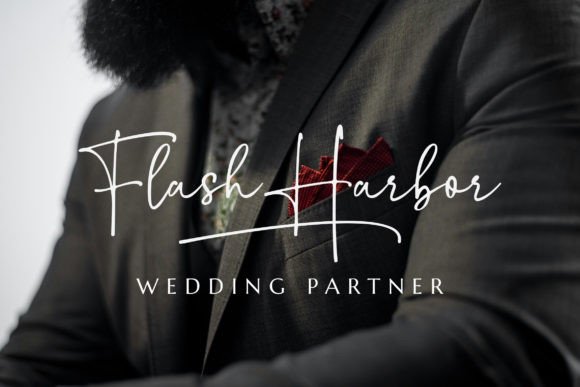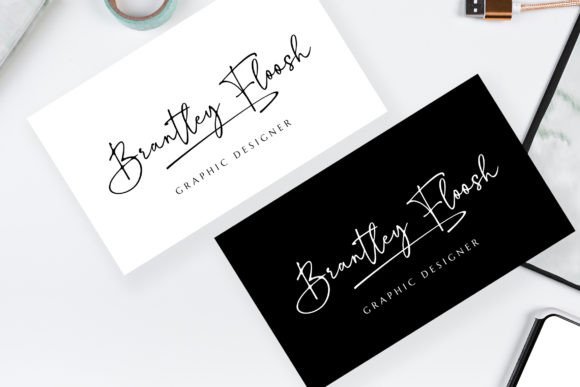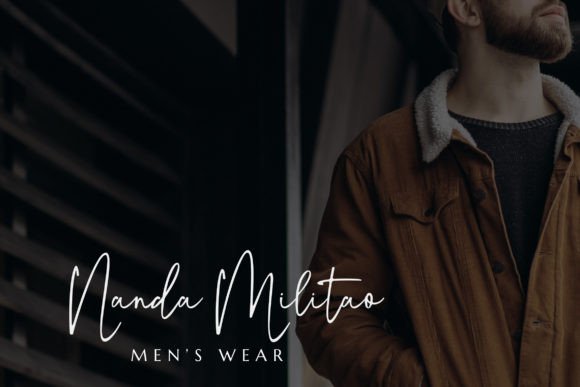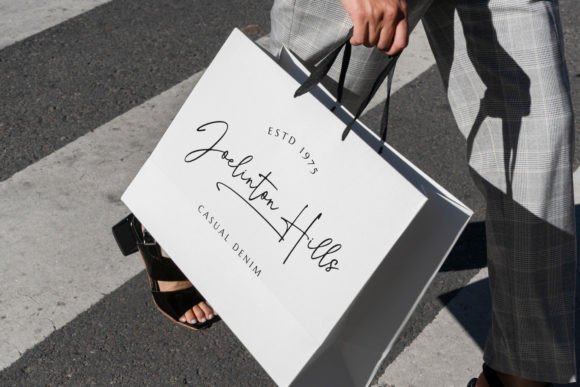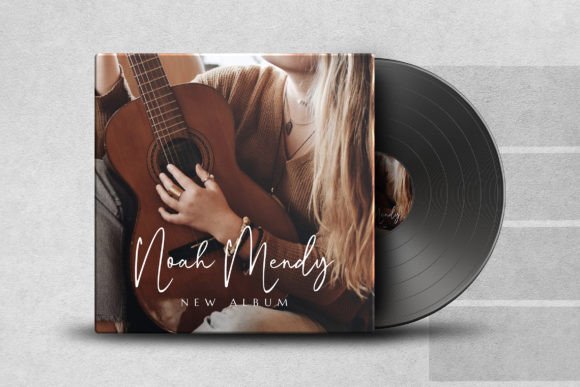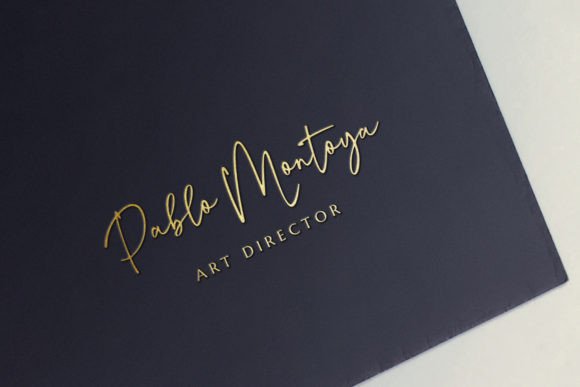
Brightown Font: Elevate Your Creative Projects with Elegance and Magic
Are you a designer, crafter, or DIY enthusiast looking for a font that can add a touch of elegance and magic to your creative projects? Look no further than Brightown Font, a beautiful script font designed to turn your ideas into stunning works of art. In this article, we’ll dive into the world of Brightown Font, exploring its features, benefits, and uses, as well as provide tips and inspiration for incorporating it into your projects.
What is Brightown Font?
Brightown Font is a carefully crafted script font that combines elegance and magic. With its flowing lines, intricate details, and whimsical flair, this font is perfect for adding a touch of sophistication and wonder to any project. Whether you’re creating social media graphics, invitations, posters, or DIY crafts, Brightown Font is the perfect choice.
Features of Brightown Font
So, what makes Brightown Font so special? Here are just a few of its standout features:
- Elegant and Magical Design: Brightown Font boasts a beautiful, flowing script design that’s both elegant and magical.
- Highly Versatile: This font is perfect for a wide range of projects, from Instagram graphics and calligraphy scripts to DIY crafts and more.
- Easy to Read: Despite its intricate details, Brightown Font is highly legible, making it perfect for use in both digital and print projects.
- Extensive Language Support: Brightown Font supports a wide range of languages, making it a great choice for international projects.
Uses for Brightown Font
So, how can you use Brightown Font in your creative projects? Here are just a few ideas to get you started:
- Instagram Graphics: Add a touch of elegance and magic to your Instagram feed with Brightown Font.
- Calligraphy Scripts: Use Brightown Font to create beautiful calligraphy scripts for DIY projects, such as wedding invitations, gift tags, and more.
- Posters and Flyers: Brightown Font is perfect for creating eye-catching posters and flyers for events, promotions, and more.
- DIY Crafts: Add a personal touch to your DIY crafts, such as scrapbooking, card making, and journaling, with Brightown Font.
Tips for Using Brightown Font
Here are a few tips for getting the most out of Brightown Font:
- Experiment with Colors: Brightown Font looks stunning in a range of colors, from metallic and pastel hues to bold and bright shades.
- Play with Pairings: Try pairing Brightown Font with other fonts, such as sans-serif or serif fonts, to create interesting and dynamic text combinations.
- Add Decorations: Use Brightown Font to create beautiful calligraphy scripts, and add decorations, such as flourishes and swashes, to give your text a personal touch.
In conclusion, Brightown Font is a magical script font that’s perfect for designers, crafters, and DIY enthusiasts looking to add a touch of elegance and magic to their creative projects. With its elegant design, versatility, and ease of use, Brightown Font is sure to become a favorite in your font collection. So why wait? Download Brightown Font today and start turning your creative ideas into stunning works of art!
Whether you’re a seasoned designer or a crafty DIY enthusiast, Brightown Font is the perfect choice for anyone looking to elevate their creative projects. So go ahead, get creative, and show the world what you’re working with!